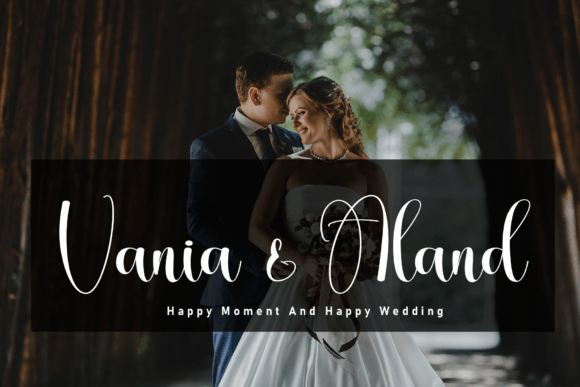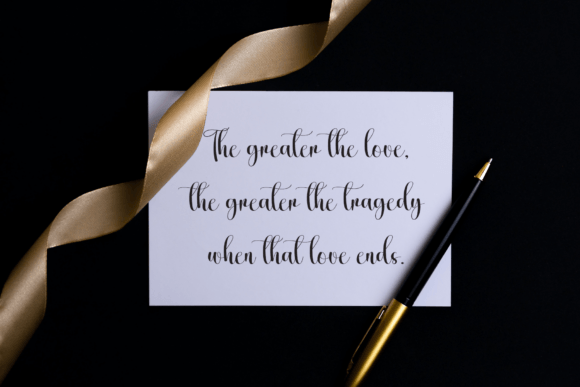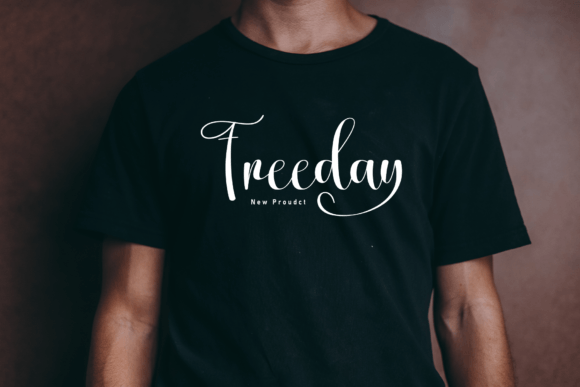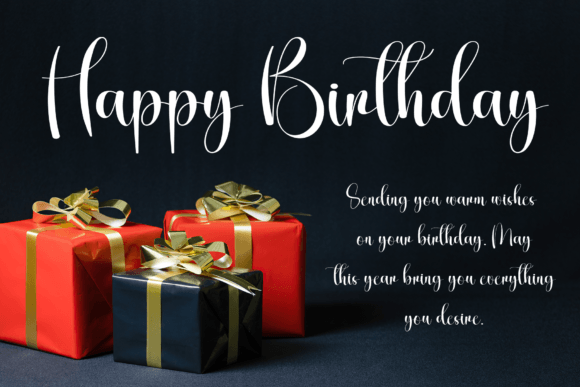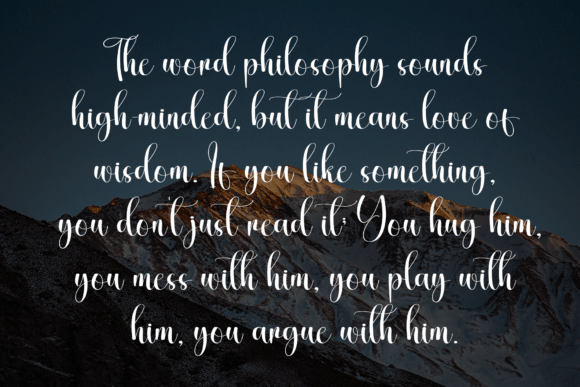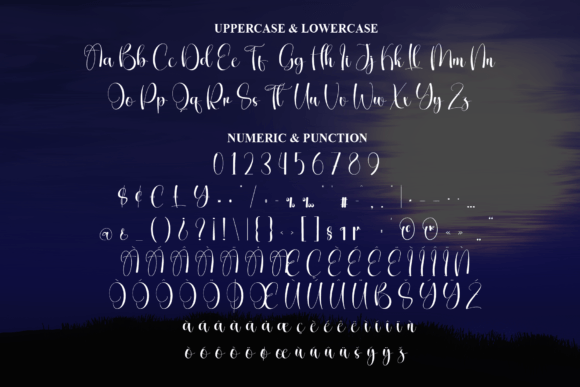
Introducing Colour Moonlight: A Delightful Handwritten Font with Lovely Swashes
Are you tired of using the same old fonts in your designs? Do you want to add a touch of whimsy and elegance to your projects? Look no further than Colour Moonlight, a charming handwritten font that’s perfect for designers and crafters alike. In this article, we’ll take a closer look at Colour Moonlight and explore its features, benefits, and uses.
A Charming Handwritten Font
Colour Moonlight is a beautiful handwritten font that’s filled with lovely swashes. Its charming style is perfect for adding a personal touch to your designs, making them stand out from the crowd. Whether you’re crafting invitations, cards, posters, or any other type of project, Colour Moonlight brings a playful elegance that’s sure to impress.
Features of Colour Moonlight
So, what makes Colour Moonlight so special? Here are just a few of its key features:
• Handwritten style: Colour Moonlight is a handwritten font that’s designed to look like it was written with a pen or pencil. Its imperfections and quirks give it a personal touch that’s hard to find with digital fonts.
• Lovely swashes: One of the standout features of Colour Moonlight is its beautiful swashes. These decorative flourishes can be used to add a touch of elegance to your designs, making them perfect for headings, titles, and other important text.
• Playful elegance: Colour Moonlight has a playful elegance that’s perfect for designers and crafters who want to add a touch of whimsy to their projects. Its charming style is sure to delight your audience and make your designs stand out.
Uses for Colour Moonlight
So, what can you use Colour Moonlight for? The possibilities are endless! Here are just a few ideas to get you started:
• Invitations: Colour Moonlight is perfect for creating beautiful invitations for weddings, parties, and other special events. Its elegant style and lovely swashes make it a great choice for formal and informal invitations alike.
• Cards: Whether you’re creating greeting cards, postcards, or any other type of card, Colour Moonlight is a great choice. Its playful elegance and charming style make it perfect for adding a personal touch to your cards.
• Posters: Colour Moonlight is also great for creating posters for events, promotions, and other purposes. Its bold style and lovely swashes make it easy to read and visually appealing.
• Digital designs: Colour Moonlight can also be used for digital designs, such as social media graphics, blog posts, and website headers. Its elegant style and playful elegance make it perfect for adding a touch of personality to your digital designs.
Tips for Using Colour Moonlight
Here are a few tips for using Colour Moonlight in your designs:
• Experiment with different sizes: Colour Moonlight looks great in a variety of sizes, from large headings to smaller body text. Experiment with different sizes to find the one that works best for your project.
• Play with swashes: The swashes in Colour Moonlight are one of its standout features. Experiment with different swashes to add a touch of elegance and whimsy to your designs.
• Pair it with other fonts: Colour Moonlight can be paired with other fonts to create a unique and visually appealing design. Try pairing it with a bold font for headings or a sans-serif font for body text.
In conclusion, Colour Moonlight is a delightful handwritten font that’s perfect for designers and crafters who want to add a touch of whimsy and elegance to their projects. Its charming style, lovely swashes, and playful elegance make it a great choice for a wide range of designs, from invitations and cards to posters and digital designs. With its versatility and flexibility, Colour Moonlight is sure to become a favorite font in your collection.